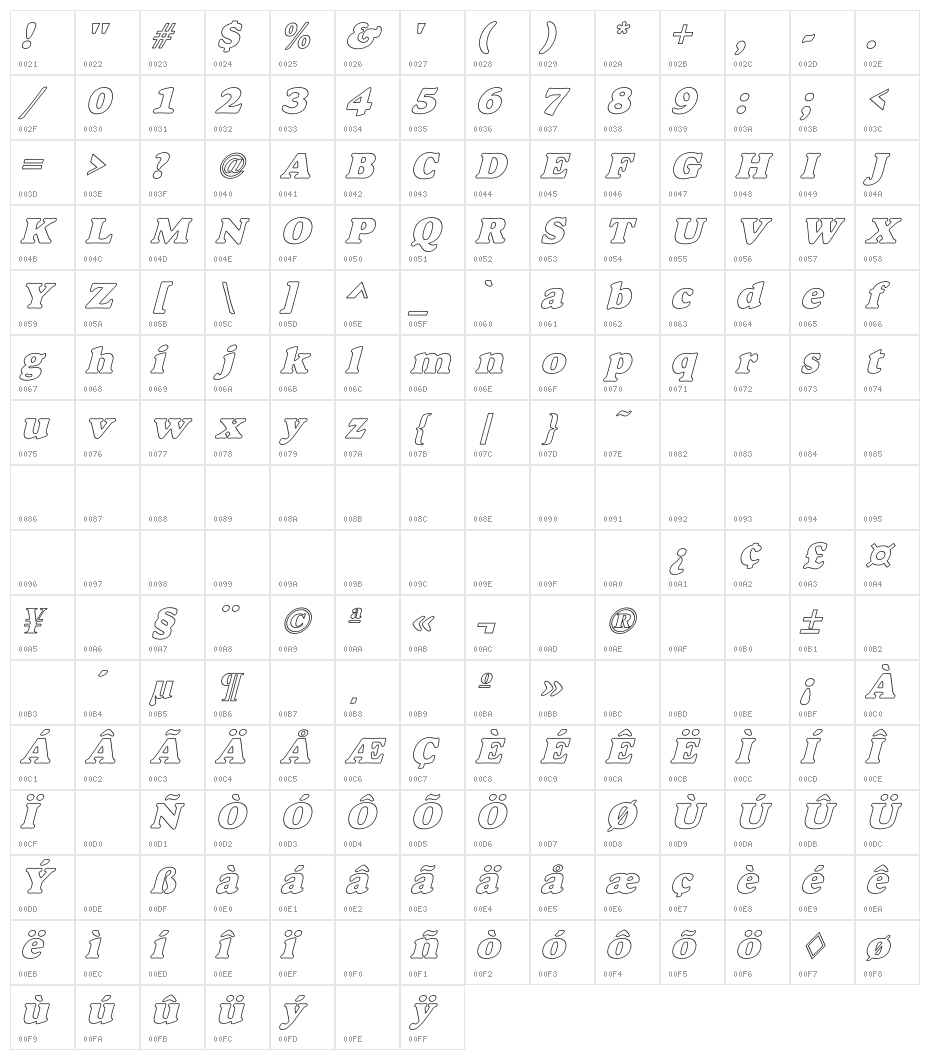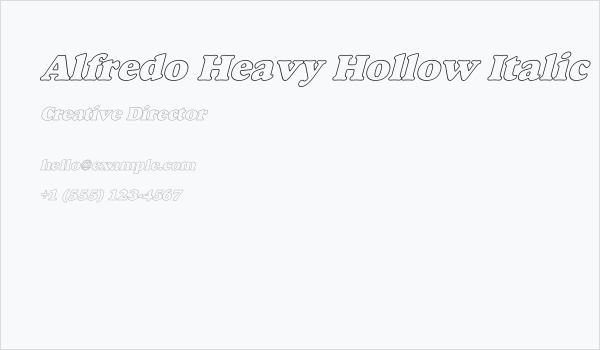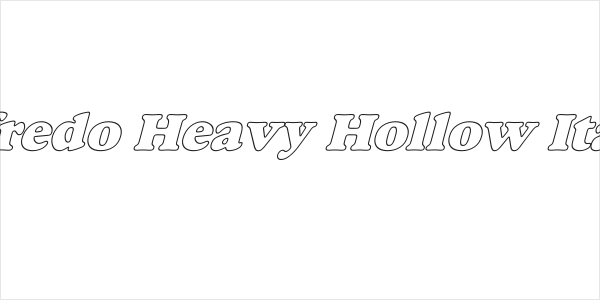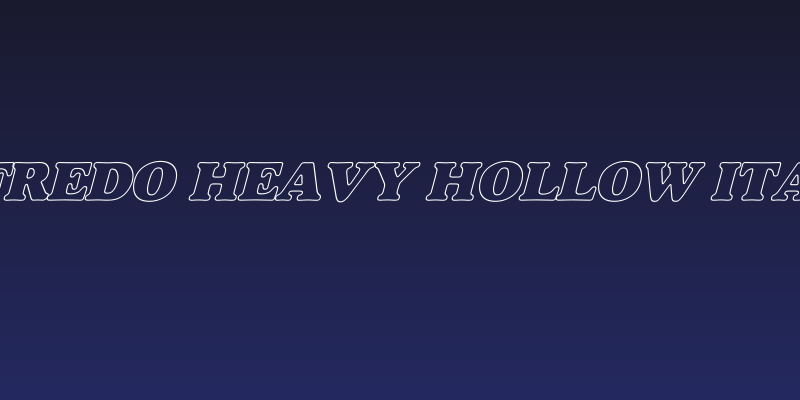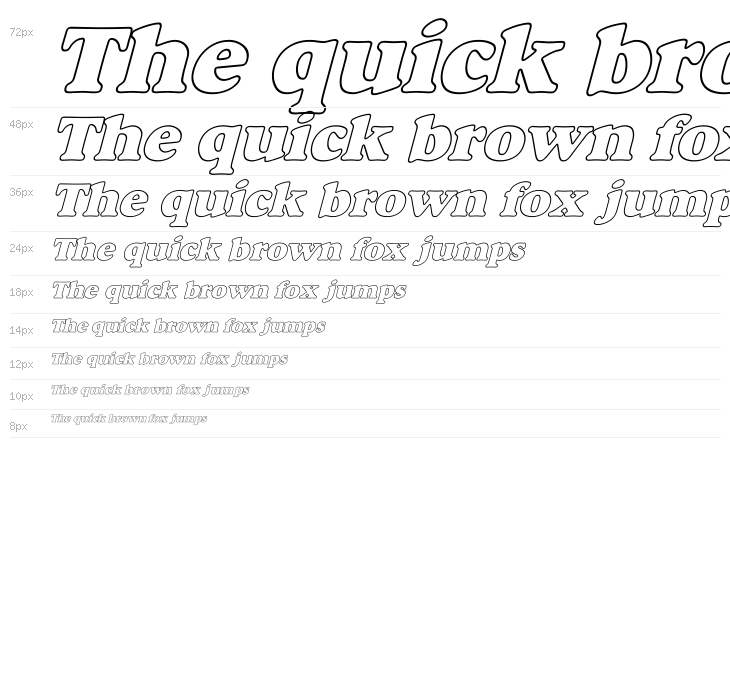
Alfredo Heavy Hollow Italic Font
Alfredo Heavy Hollow Italic Description
This font features a bold, hollow design with a distinct italic slant, giving it a dynamic and eye-catching appearance. The uppercase and lowercase letters maintain a consistent style, with thick outlines and a hollow interior that creates a striking visual effect. The numerals and special characters follow the same design principles, ensuring uniformity across all characters. The italicized form adds a sense of movement and elegance, making it suitable for projects that require a bold statement. The font's unique style is both modern and playful, making it versatile for various creative applications.
| Proposed Projects | Ideal for headlines, posters, logos, and branding materials that need a bold and distinctive look. |